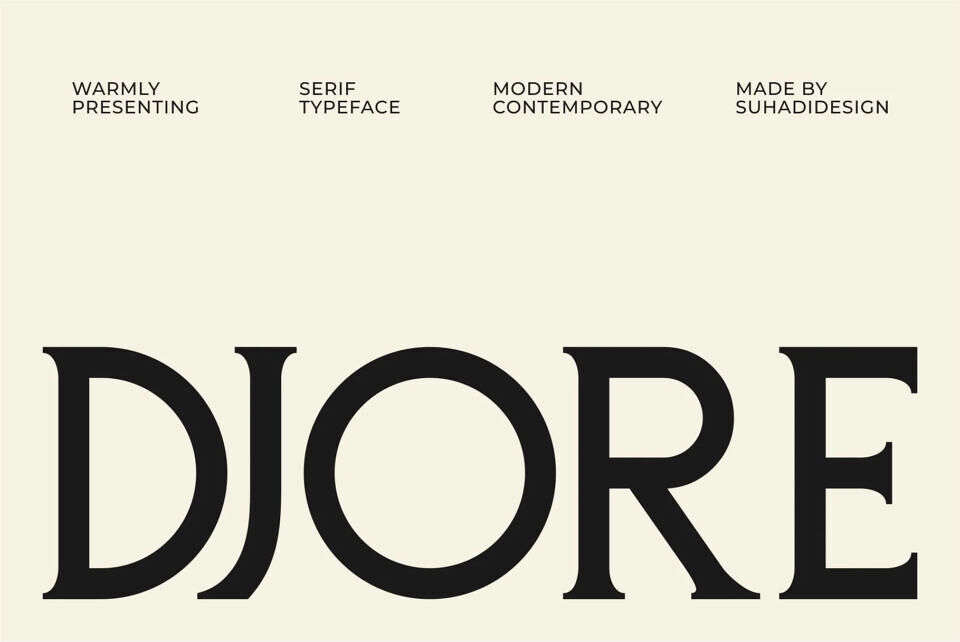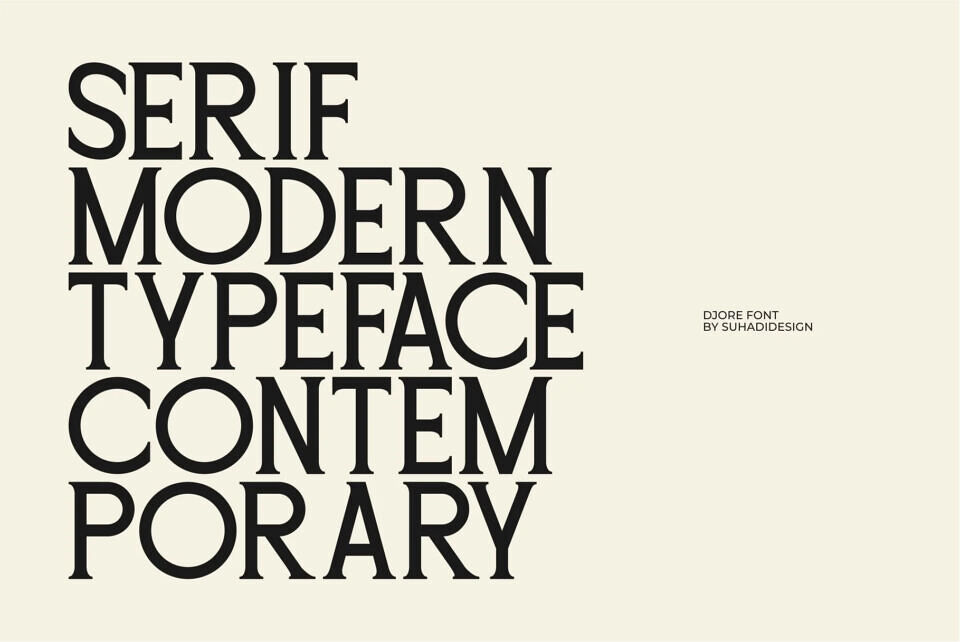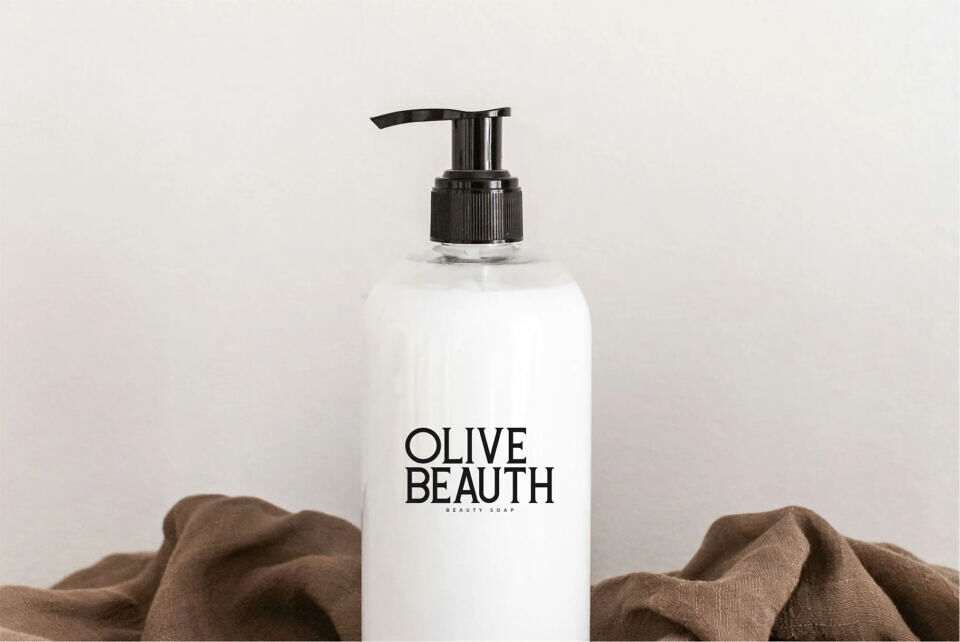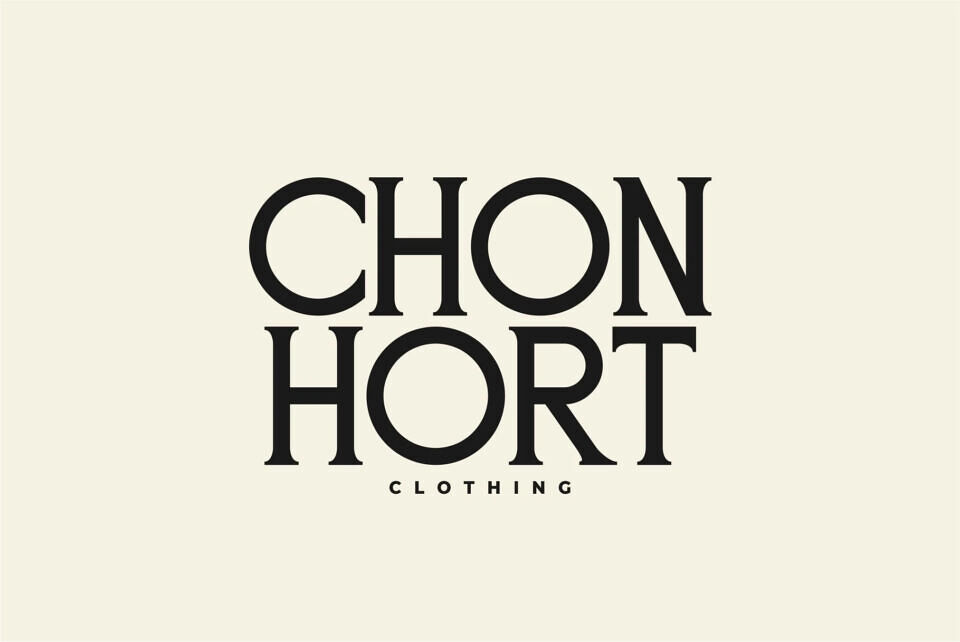
Djore Font
Djore is a modern serif typeface. With its elegant, contemporary design and cutting-edge style, this font has become a favorite on the market. We maintain the elegant, classy, ​​and stylish look of this font.
Djore is a perfect choice for magazines, designs, books, publications, branding, brand names, business cards, social media, classy designs, newspapers, beauty, and other projects. Djore is here to elevate the quality of your designs.